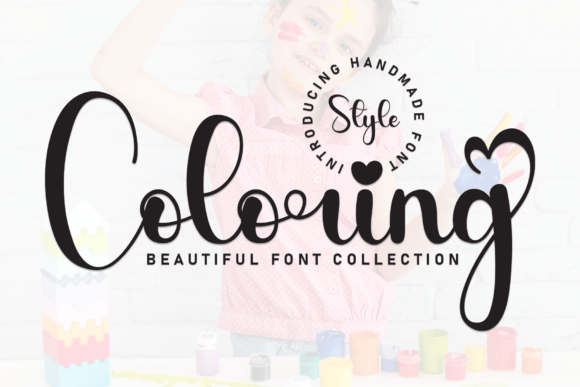
Unlocking the Art of Elegant Design
Have you ever found yourself scribbling in a notebook, experimenting with different strokes and letterforms, in search of the perfect font to capture the essence of your creative vision? For many designers, this is a moment of pure inspiration – the spark that sets the wheels turning and ideas flowing. And for those who crave a touch of sophistication and modern charm in their designs, there’s a new font that’s sure to captivate: the Coloring Font.
With its fluid strokes, graceful curves, and carefully balanced letterforms, the Coloring Font is a stylish script font that exudes elegance and refinement. Ideal for logos, invitations, packaging, and social media graphics, it adds a touch of personality to any design. Whether you’re a seasoned pro or just starting out, this versatile font is a valuable addition to your design toolkit.
Key Features of Coloring Font
- Unique Font Style: Coloring Font offers a unique blend of colorful and monochromatic styles, allowing users to express themselves through text.
- Color Options: Featuring a range of vibrant colors, users can choose from a palette of 20+ colors to customize their text, making it perfect for creative projects.
- Customization: Users can adjust the color intensity, saturation, and hue to create unique and personalized effects, adding an extra layer of creativity.
Review of “Coloring Font”
Overall, I found “Coloring Font” to be an interesting experiment in typography and creativity. There are some unique features that make it stand out, and I appreciate the effort put into creating something new and original. ✨ Here are some of the things that work well:
- The font’s ability to change color based on the surrounding text is a clever feature that can add some visual interest to designs.
- The various color options and effects available make it easy to customize the font to fit different styles and themes.
However, there are also some limitations that I’d like to point out. ⚠️ These include:
- The font’s readability can suffer when used in complex or dense text, which can make it difficult to read and understand.
- The font’s color-changing feature can be overwhelming or distracting in some cases, particularly if used excessively.
Overall, I think “Coloring Font” is a fun and creative tool that can add some visual interest to designs. While it’s not perfect, it’s a good option for designers who want to try something new and original. With some refinement and attention to detail, I think this font has the potential to become a valuable addition to any design toolkit.
Tips for Getting the Most Out of Coloring Font
Experiment with different font colors, gradients, and patterns to create unique and visually appealing designs.
Use Coloring Font to create eye-catching headings, titles, and text elements that stand out from the rest.
Combine Coloring Font with other design elements, such as images and shapes, to create complex and engaging designs.
Use Coloring Font to create:
Eye-catching headings and titles
Unique and visually